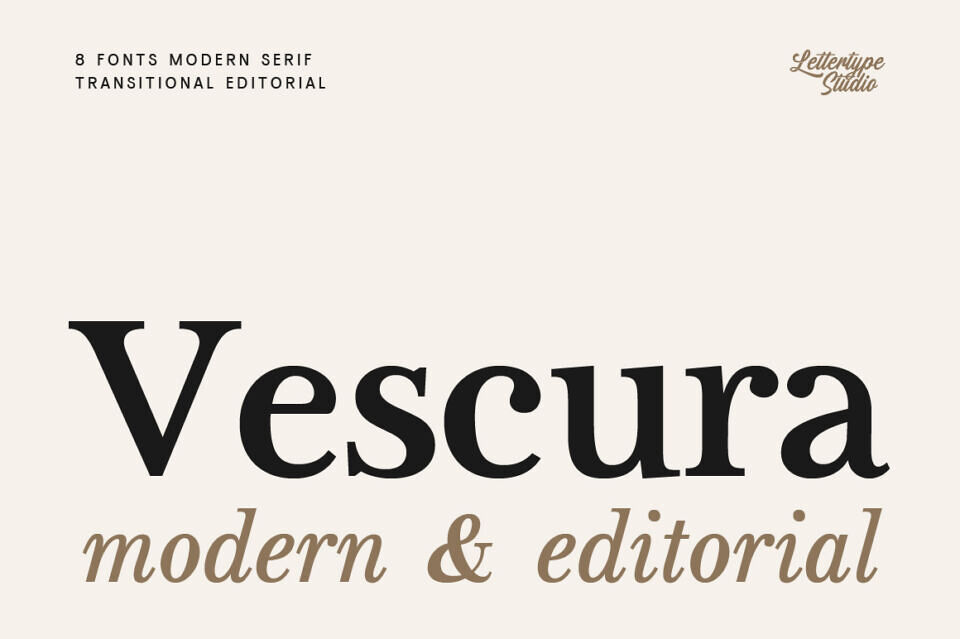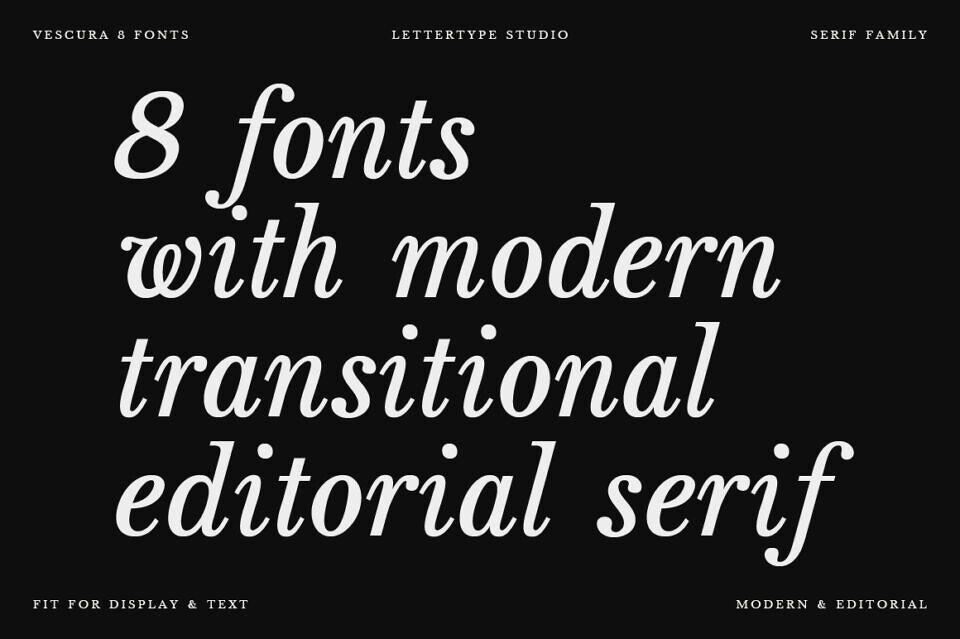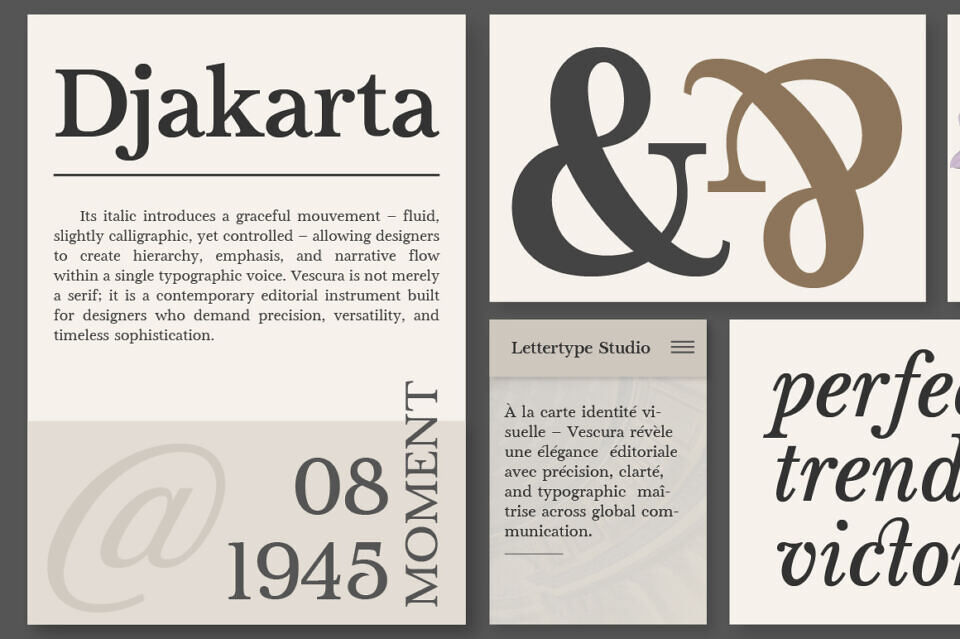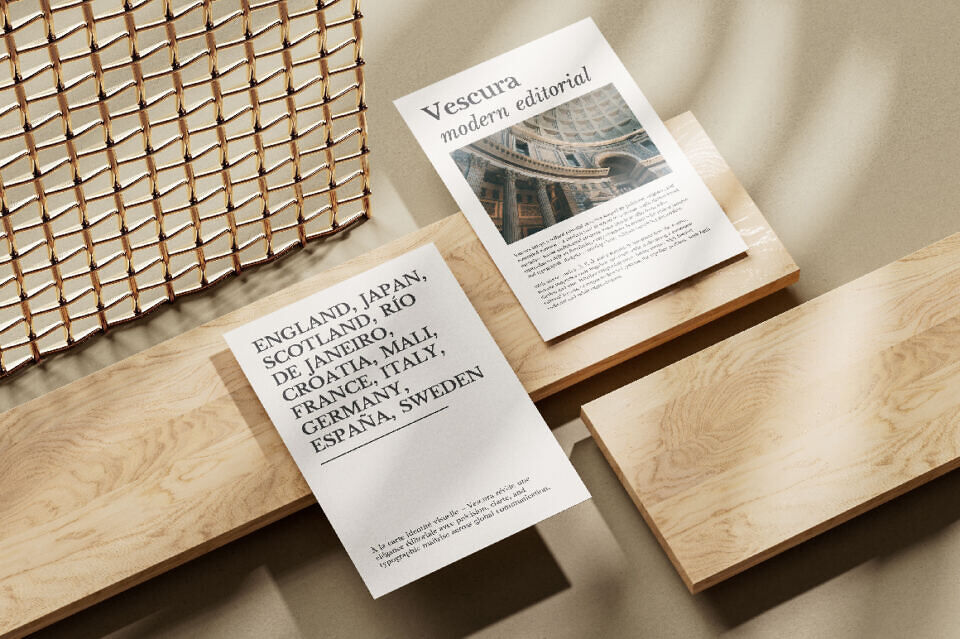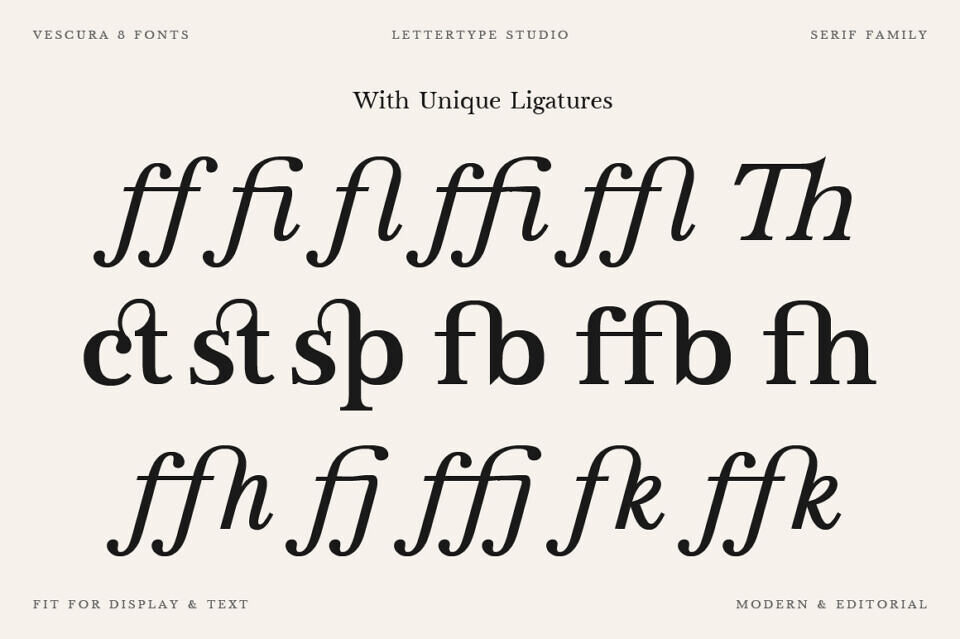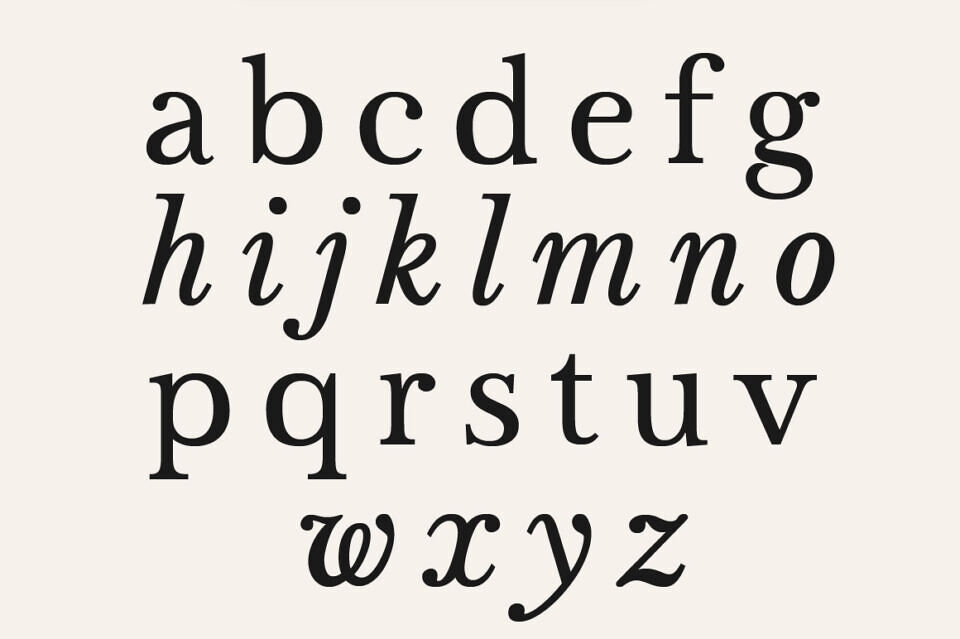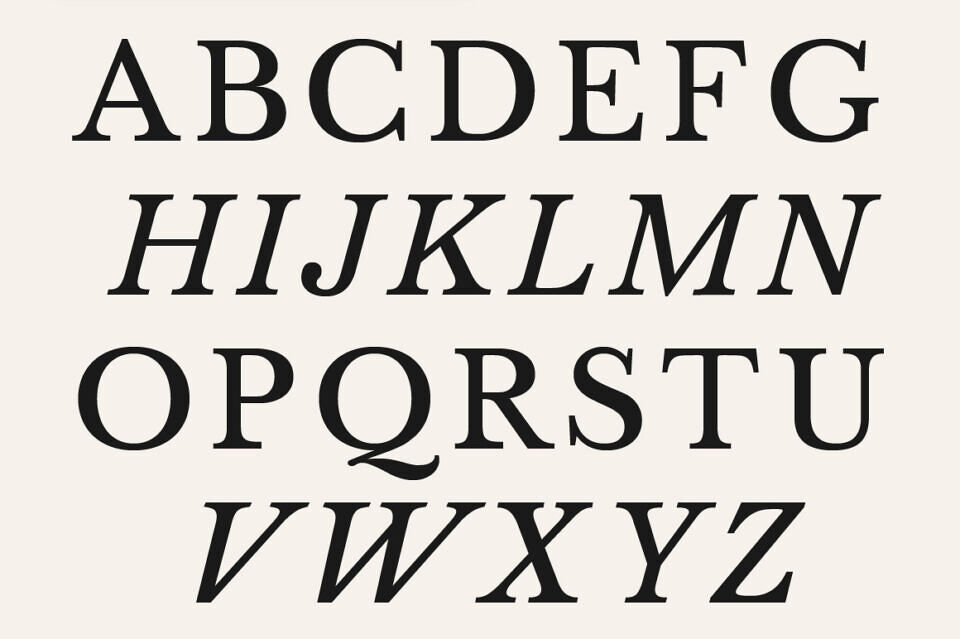
Vescura is built as a modern transitional serif system that balances clarity, structure, and editorial expression. At Lettertype Studio, this typeface is developed with a focus on controlled contrast and optical consistency, allowing it to perform reliably across different weights and styles without losing its refined character.
Unlike traditional reading serifs, Vescura introduces a slightly elevated x-height and a cleaner construction, making it more adaptable for contemporary branding and digital environments. Its structure remains disciplined, yet flexible enough to support both long-form content and expressive display usage.